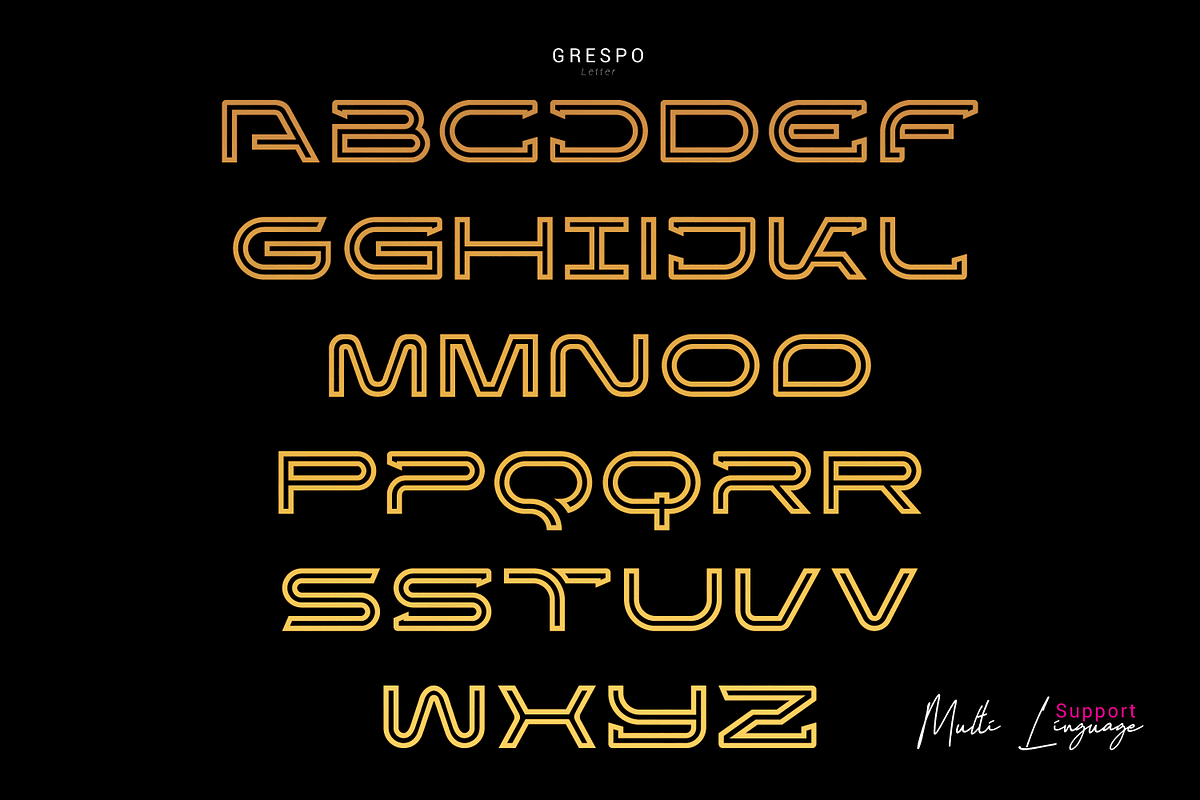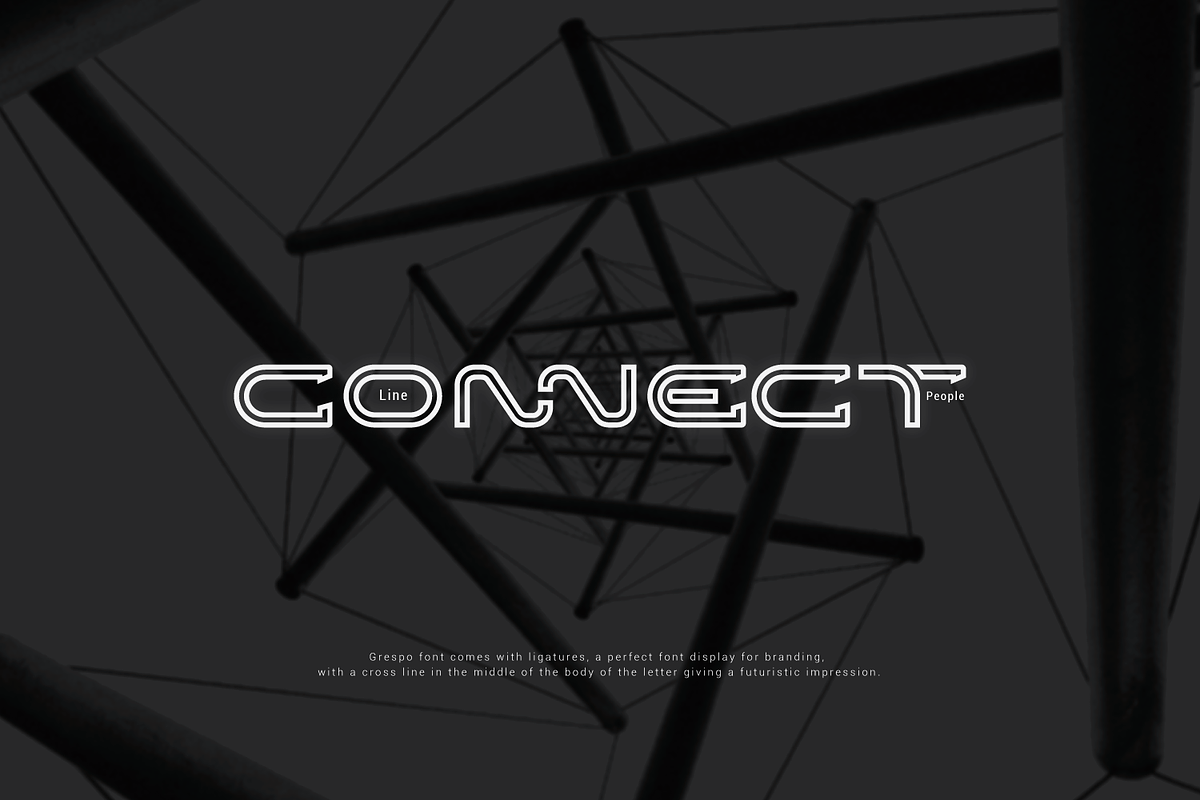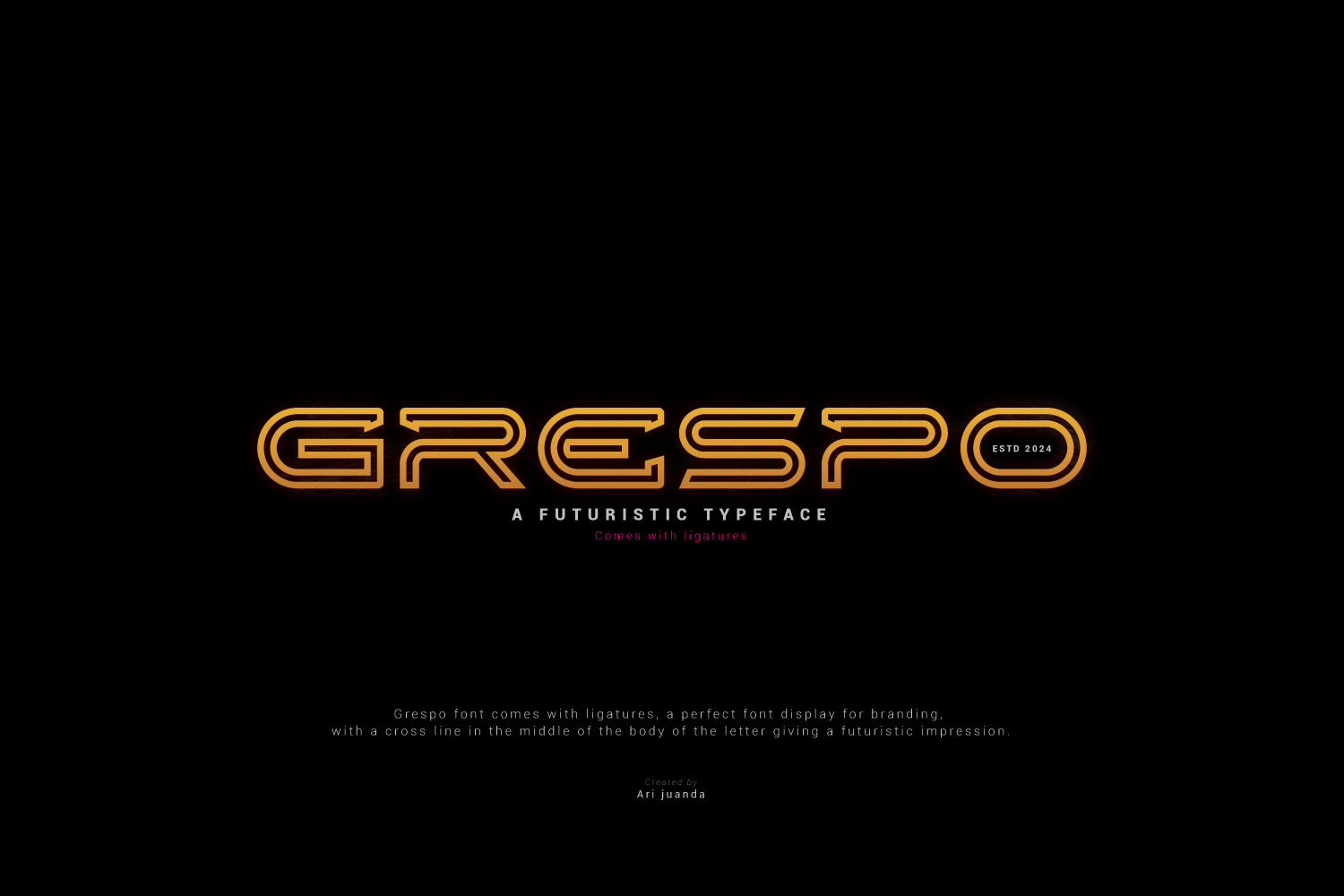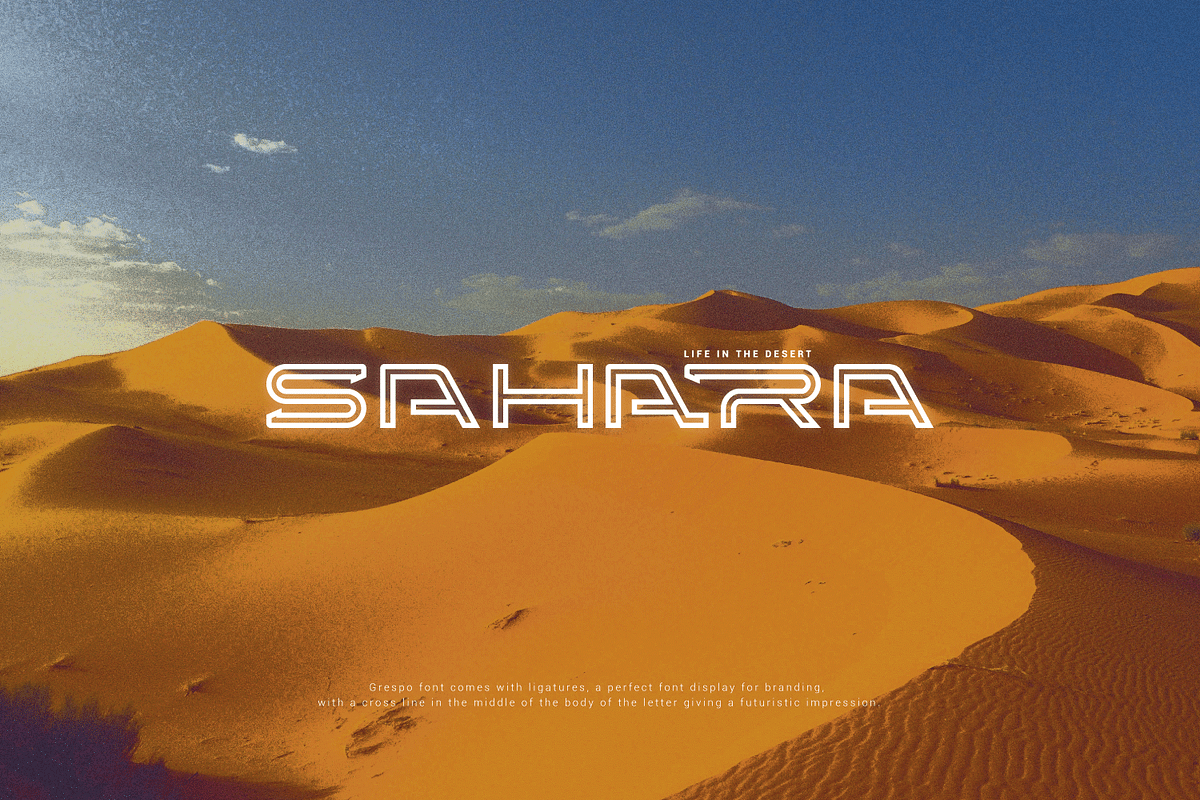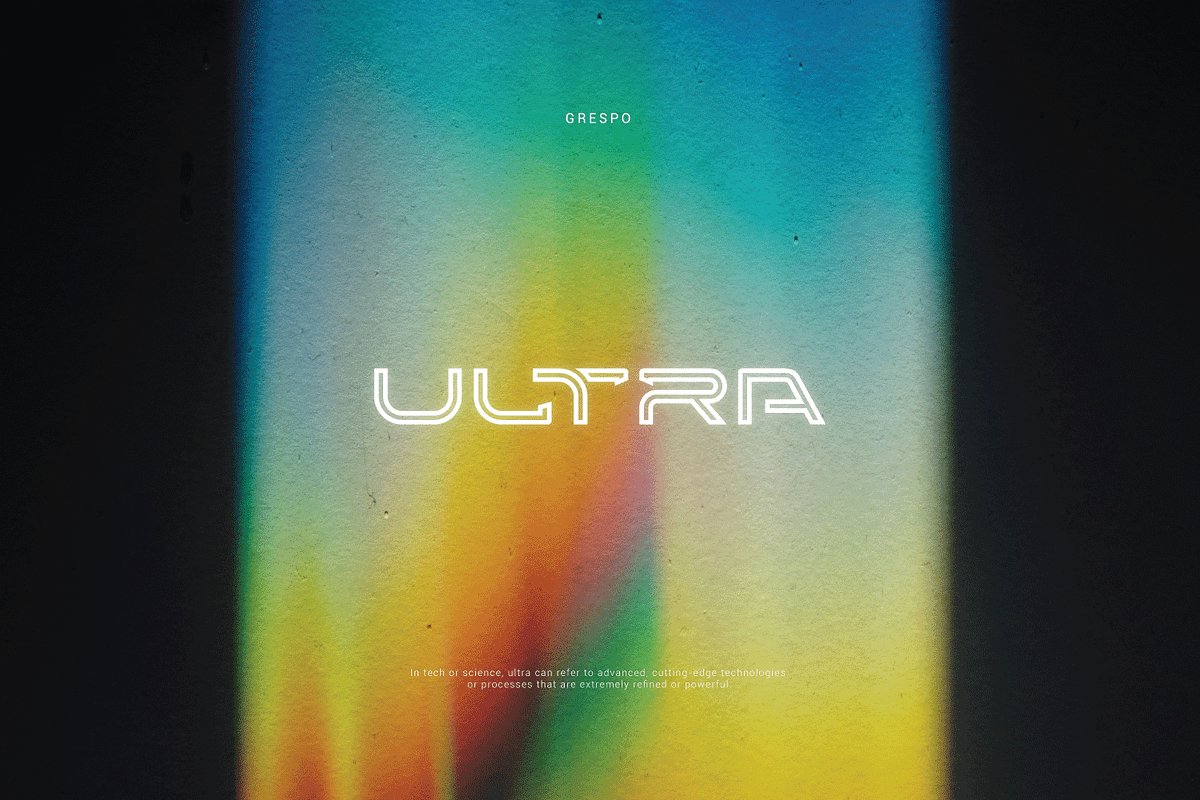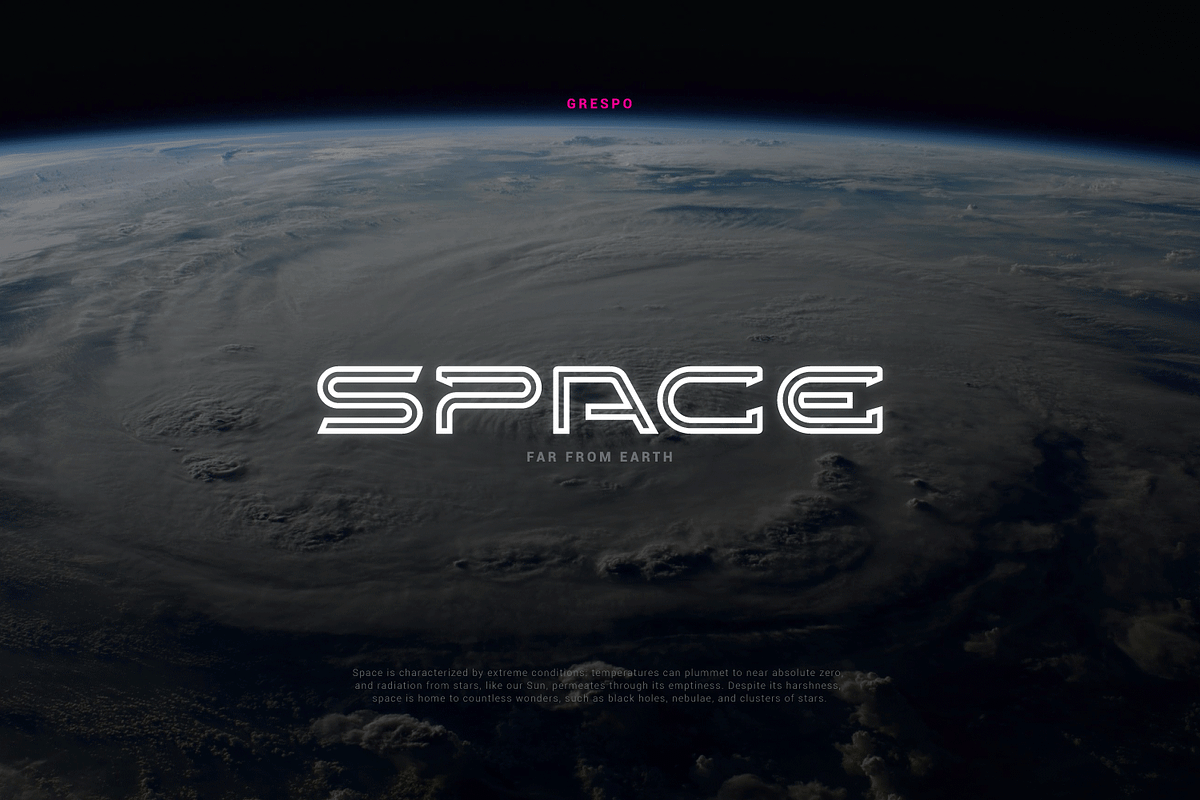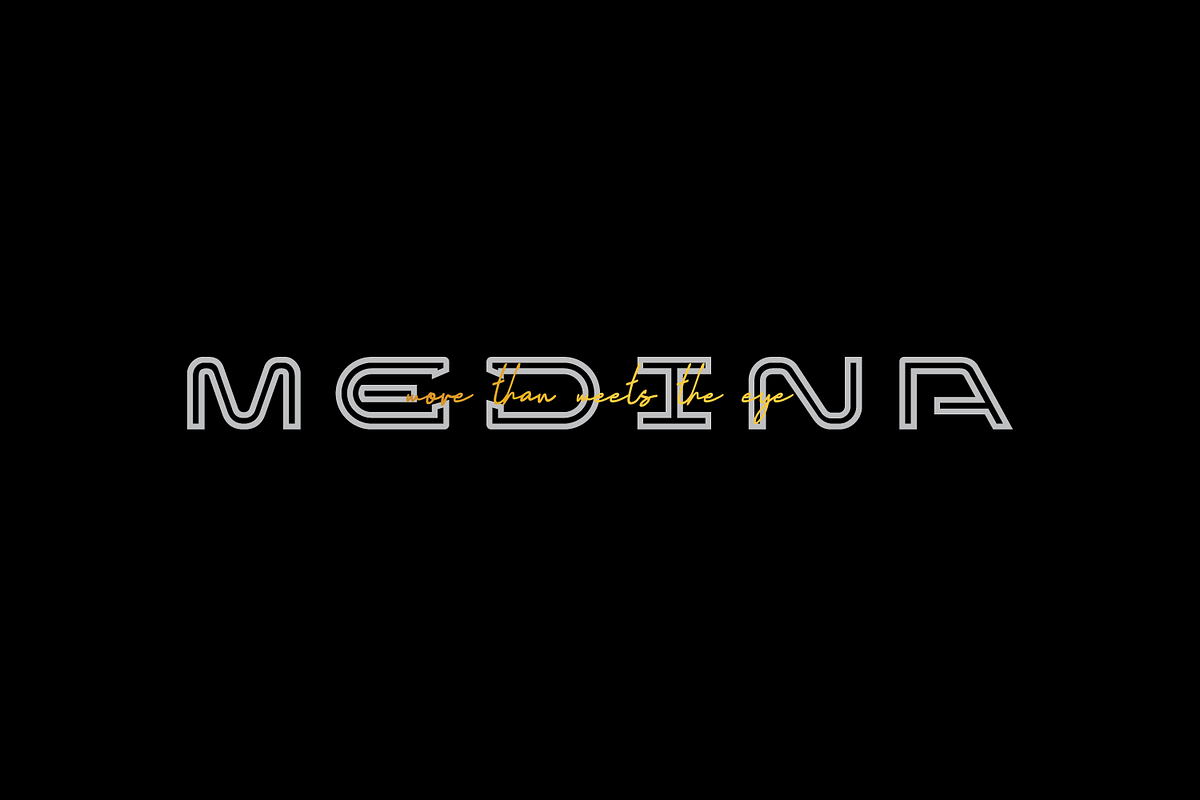
Grespo a typeface
Grespo font comes with ligatures, a perfect font display for branding, with a cross line in the middle of the body of the letter giving a futuristic impression.
- Supports Multi linguage (Latin Western Europe),
- Numbers and Punctuation
- Ligatures Character